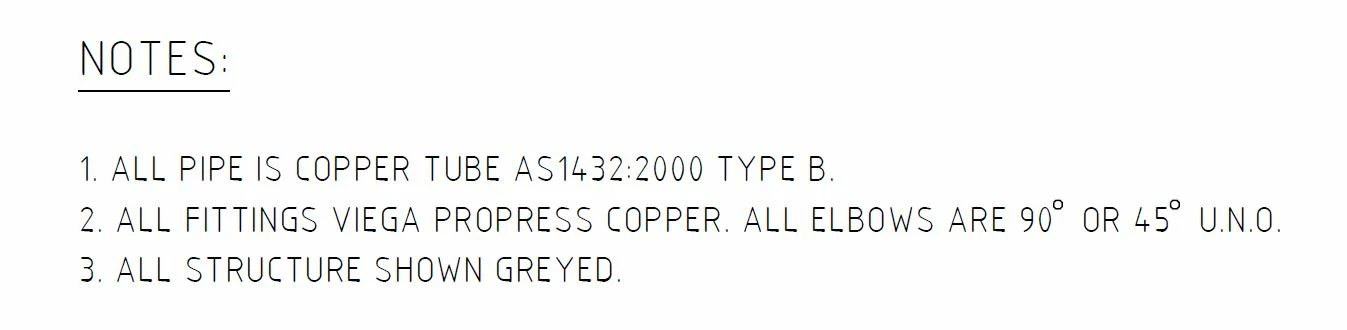
True type fonts in drawings?
The internal PDF creator (WF5) has a setting to convert to TT fonts but I
would rather use a TT font in the first place in the drawing for WSYWIG PDF
creation.
We have been using ISOFONT previously and using stroked fonts when making
PDFs.
I have experimented with ARIAL but this gives very dark text in the
drawing. ARIAL NARROW is a little lighter but still dark.
Do people have standard TT fonts they are using?
This is emphasised by contrast to the line weights which we are looking to
reduce for clarity.
CG_Triumvirate
We use SWisop3.ttf works in PDF's as well see sample attached